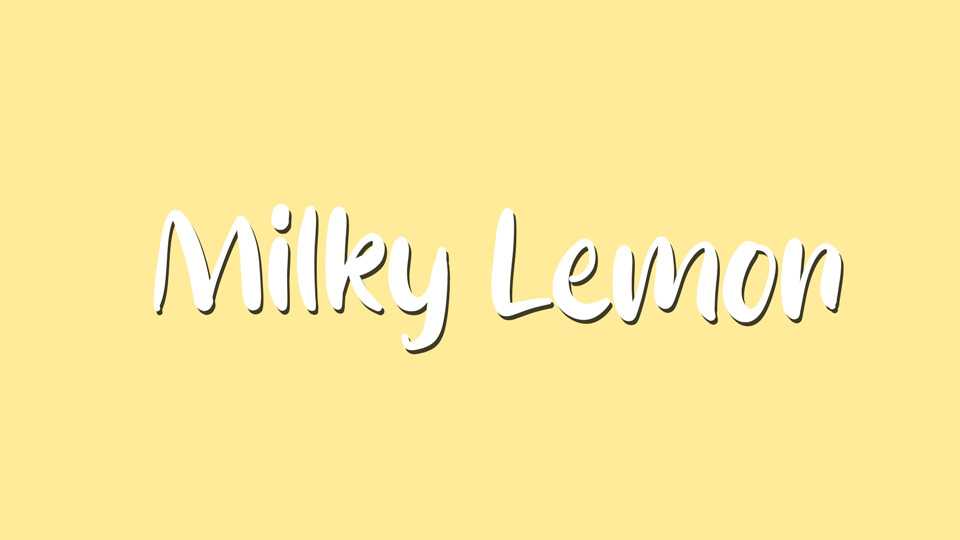
Download Milky Lemon font, a smooth and natural handwritten typeface designed to bring good vibes. Whether you need it for wedding invitations, logos, personal branding, or websites and blogs, Milky Lemon font is the perfect choice for a truly authentic look.